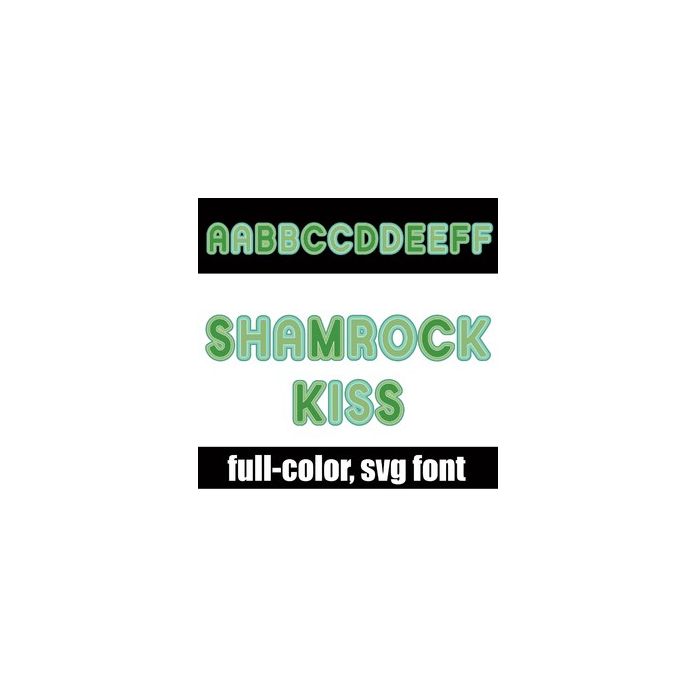
This full-color font features a retro-style letter with multi-green outlines. This font works best for titles, displays, posters and more. Please note color fonts will show as black in non compatible programs. This font type is compatible with Silhouette Studio.